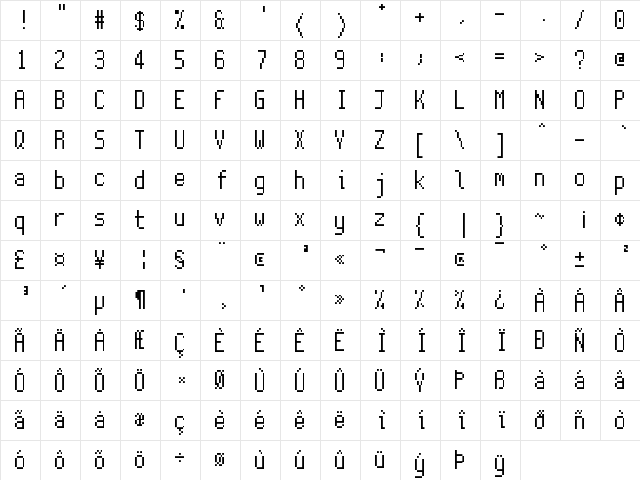
Hello World Regular
| Designer | anthonykgross |
Design Context for Hello World Typeface
Hello World offers clean, dependable letterforms without strong stylistic allegiance, making it a practical choice for designers who need flexibility.